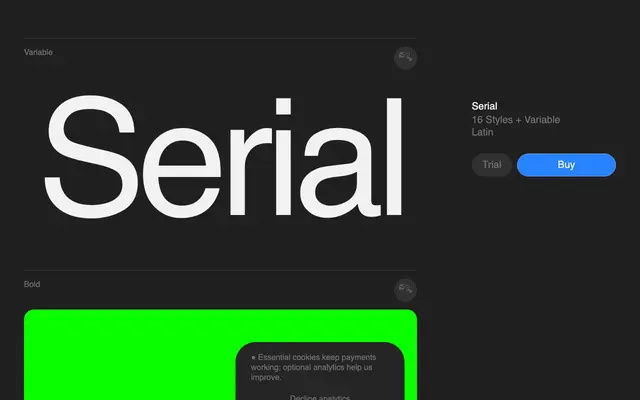
Serial
A narrow, geometrically constructed grotesque in 16 styles with variable font support, designed for structural precision and consistent rhythm across weights.
Built on deliberately restrained drawing principles, Serial prioritises structural precision and controlled relationships between letterforms. Its narrow proportions give it an efficient, compact character suited to settings where space is at a premium. Sixteen styles run from Thin to ExtraBold with matching italics, backed by a variable font and OpenType features including oldstyle figures, discretionary ligatures and six stylistic sets.
Described by the foundry as a pragmatic grotesque with narrow proportions and a rigid geometric construction, placing it at the intersection of grotesque and geometric sans traditions.